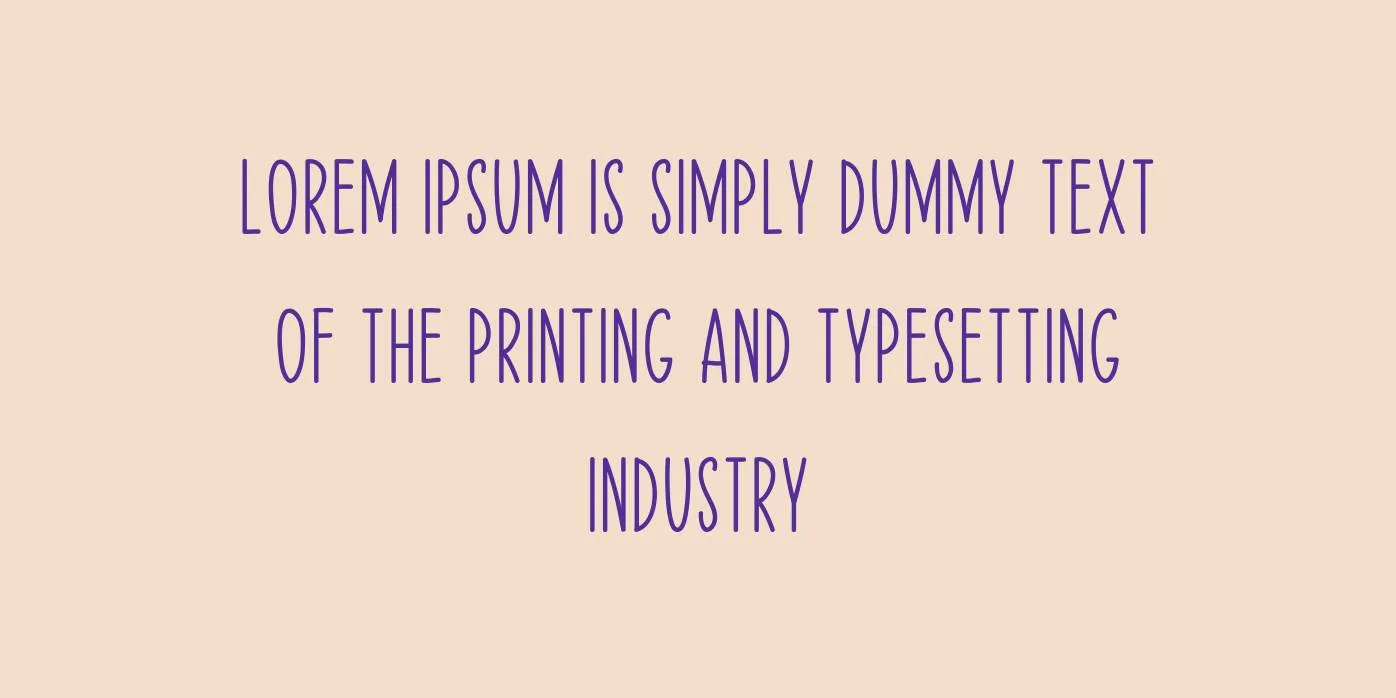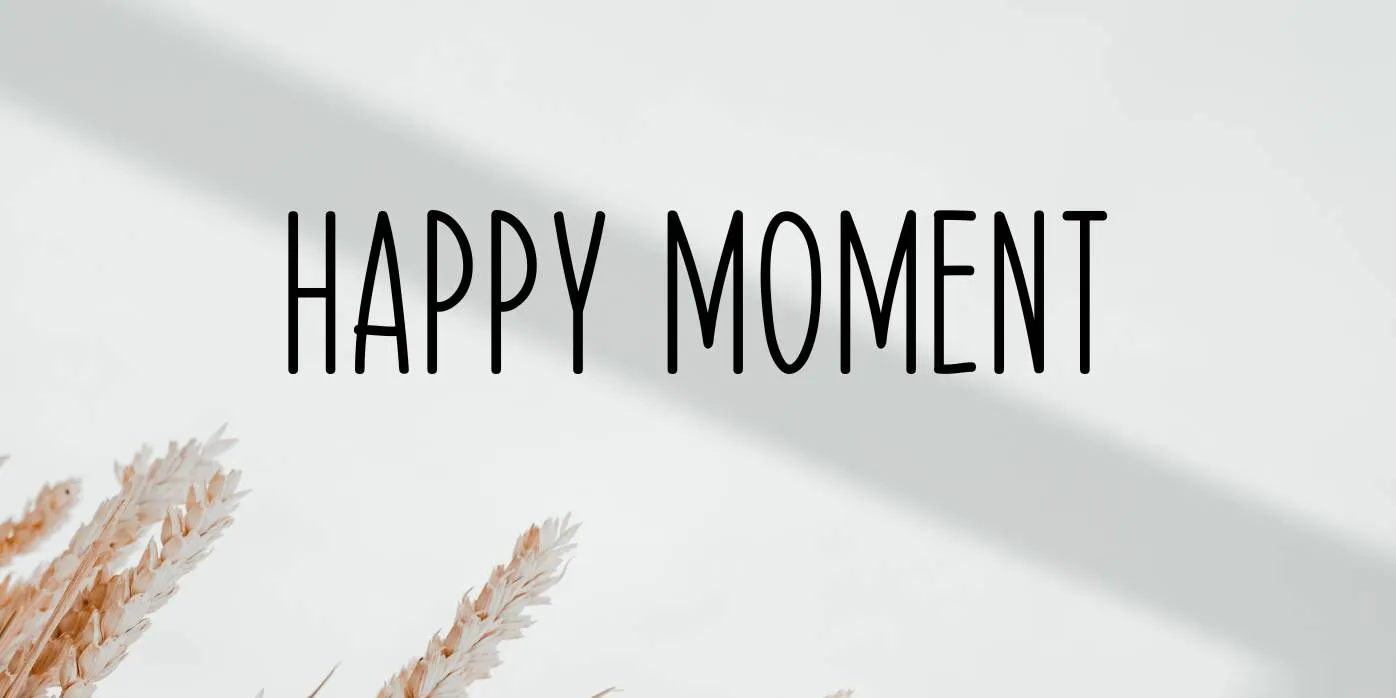
Happy Moment Font
Let’s talk about a very neat handwritten typeface Happy Moment Font. This amazing font was designed by MD Shohail Bhuian. It is a very neat and interesting font and can be used to design many lovely projects. It contains 251 characters, 210 glyphs, and 2048 units per Em.
The weight of the font is Semi-Light and its width is extra-condensed. Unicode supported 2.0 and BMP only. Languages supported by this font are Latin, Greek, and symbols. To change your simple design into a stylish look without even downloading the font you can use an online generator tool in which you can perform copy and paste format and convert your simple text into a stylish look within seconds.
It is a very friendly font and you can use it for making headlines and titles. You can also use this font for making attractive logos. For making website designs and graphic designs it is also a good choice. You can use it on Adobe Photoshop, CSS, and Cdn.
It can be used for both purposes print and digital media. To make attractive branding, product packing, and any kind of advertisement you can use it as well. In social media posts, website headers, and templates you can also use this font. Writing attractive quotes and greeting cards will be a nice option.